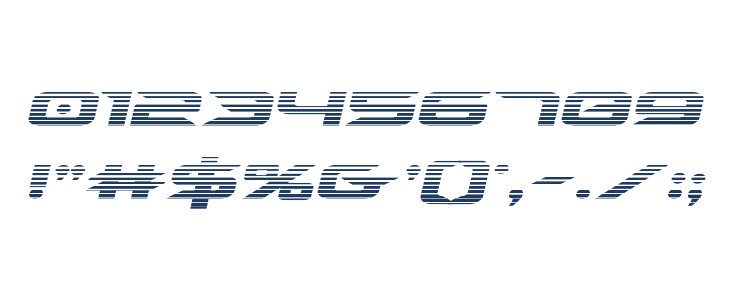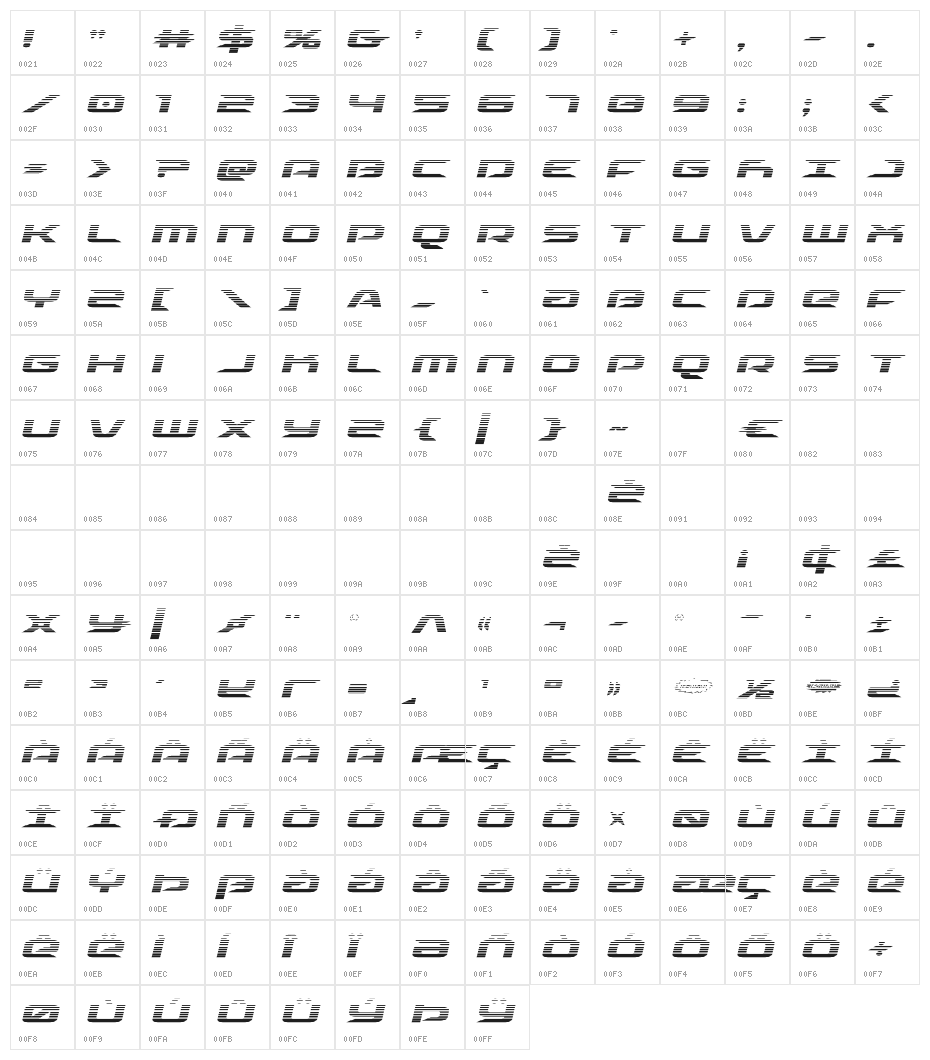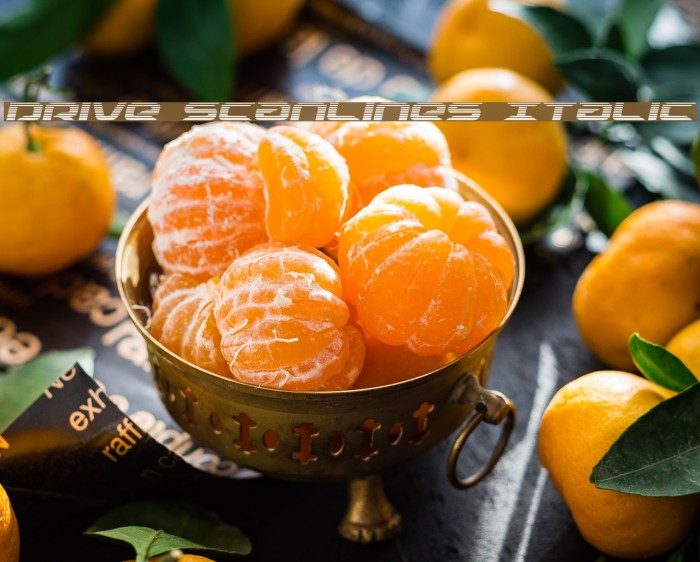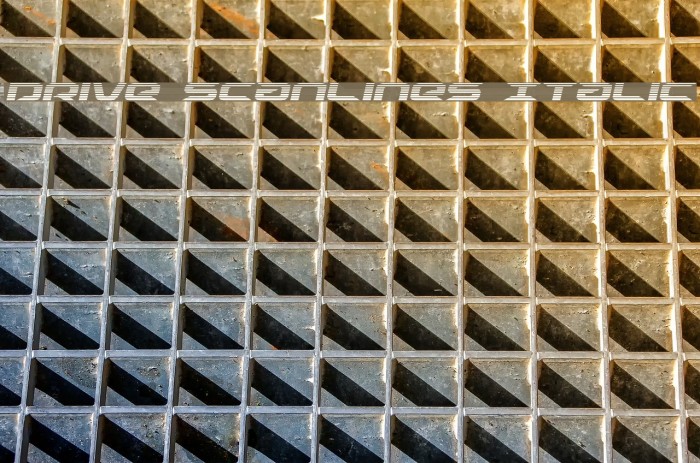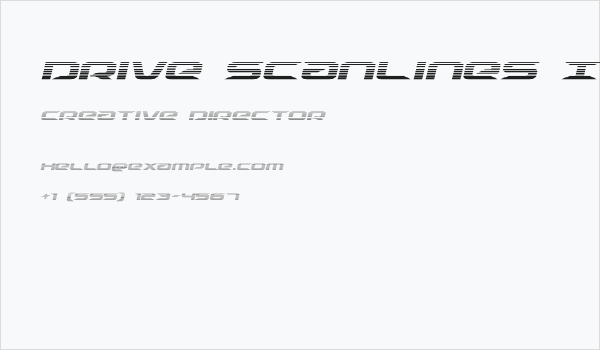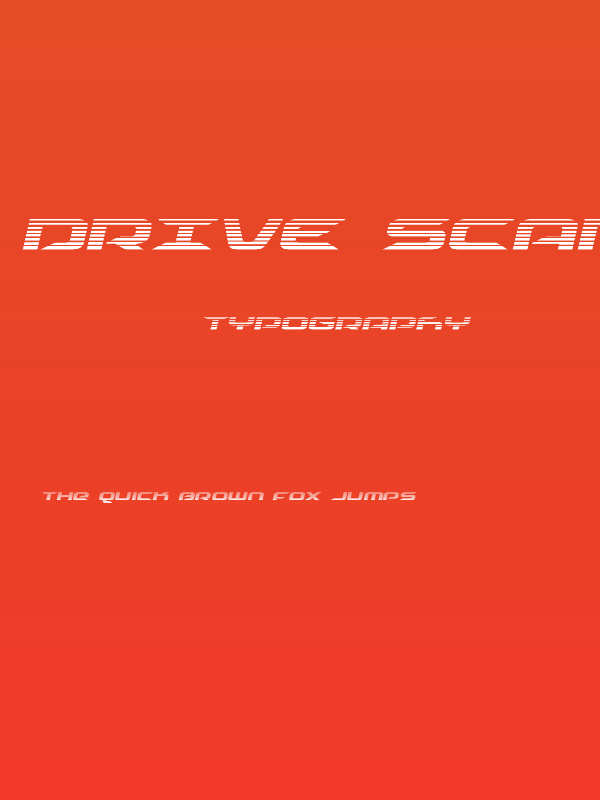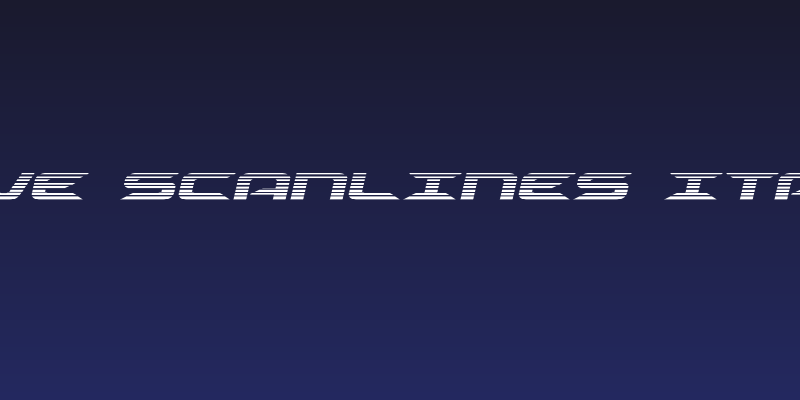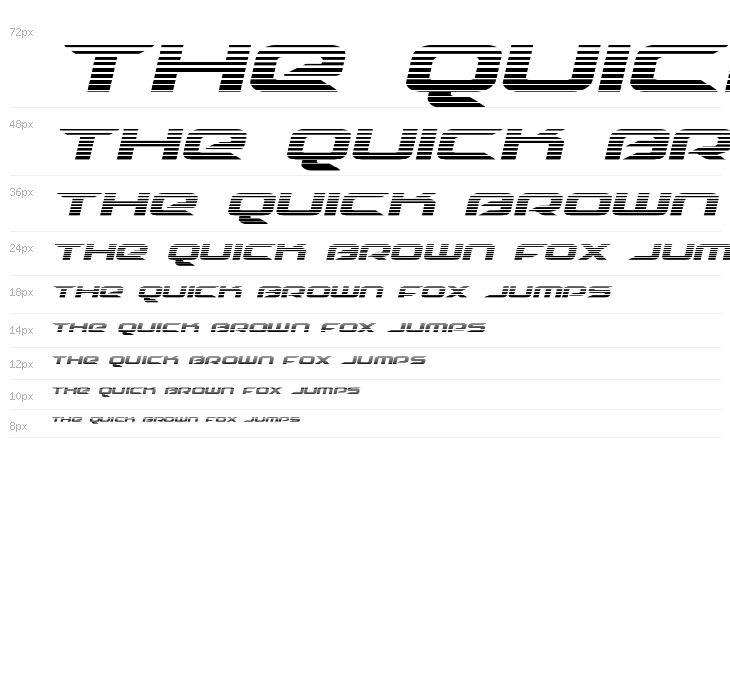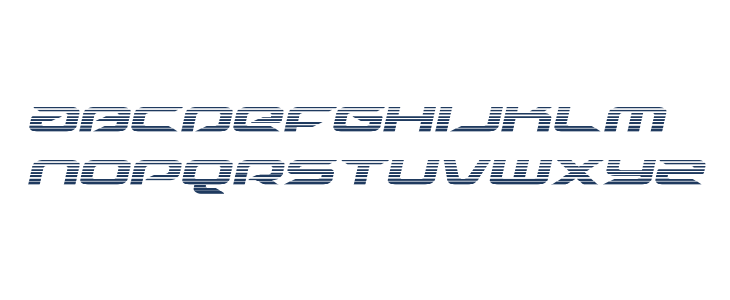
Drive Scanlines Italic Font
Drive Scanlines Italic Description
This font features a futuristic and dynamic design with a distinct italic slant. The characters are composed of horizontal lines that create a scanline effect, giving it a digital and high-tech appearance. The uppercase and lowercase letters maintain a consistent style, with sharp angles and clean lines. The numerals and special characters follow the same design principles, ensuring uniformity across all glyphs. This font is ideal for projects that require a modern and technological aesthetic, such as digital interfaces, video game titles, or sci-fi themed designs.